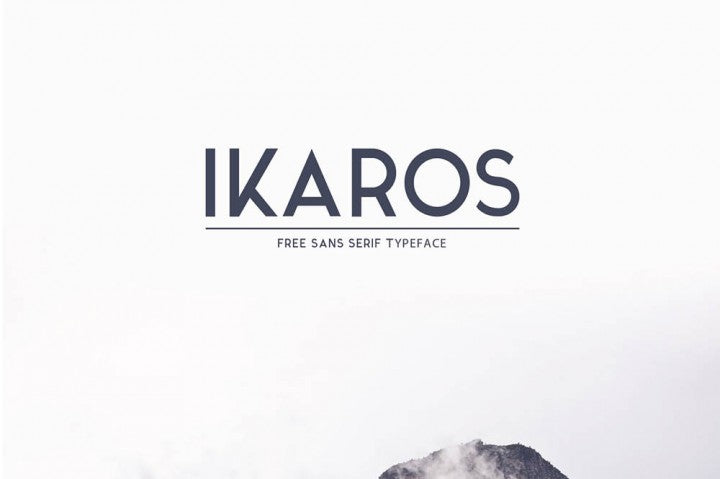
Free Font Ikaros Typeface
Download and enjoy this free font ikaros typeface. Cool typeface to showcase your designs in a modern way. Download this typeface from the original source of The Hungry JPEG. Easily amaze your audience with this beautiful font and make your graphic designs pop up from the crowd.